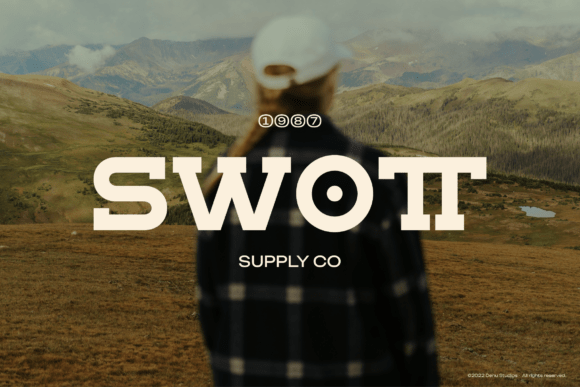
Angkor Strat Font
Ankor Strat is a bold and rugged display slab serif font with strong geometric shapes and industrial-inspired styling. Designed to command attention, this typeface is ideal for outdoor brands, sports headlines, posters, and adventure-themed projects that need a solid, masculine presence with a touch of modern grit.